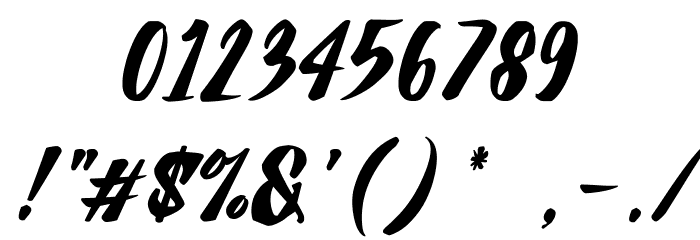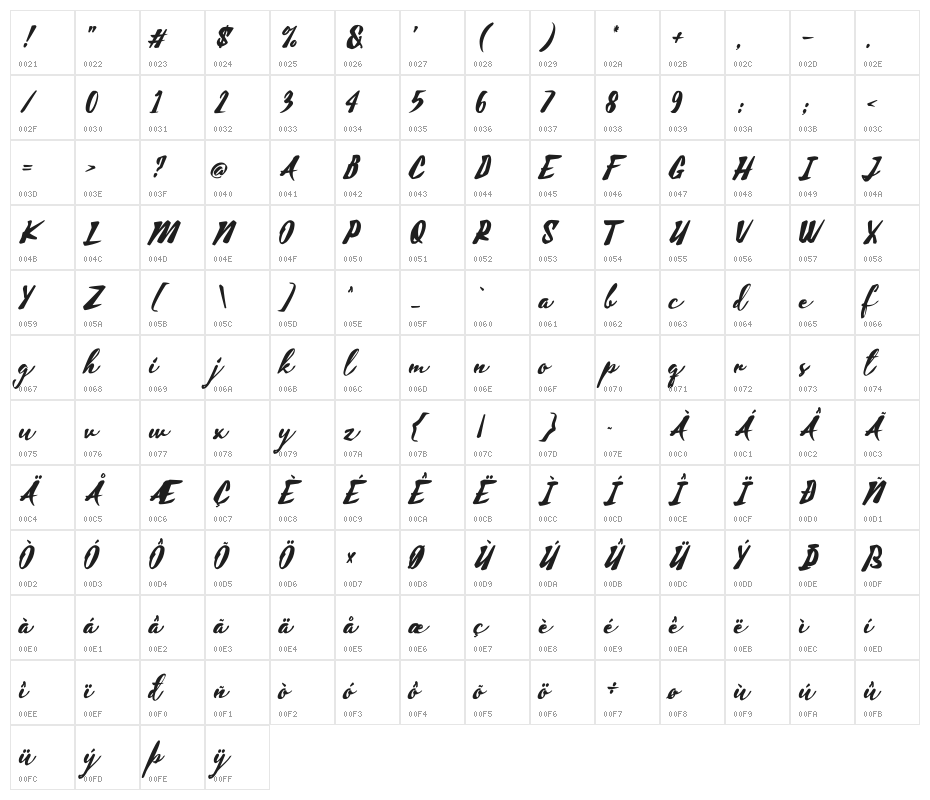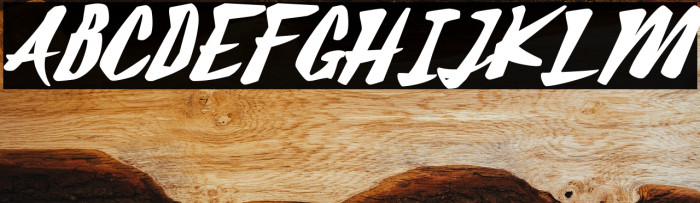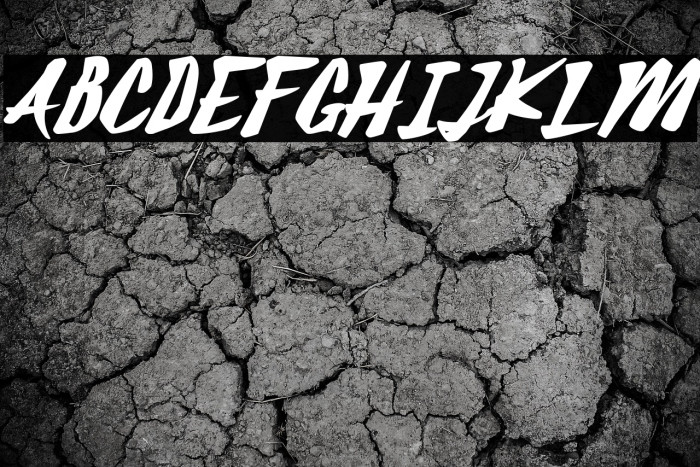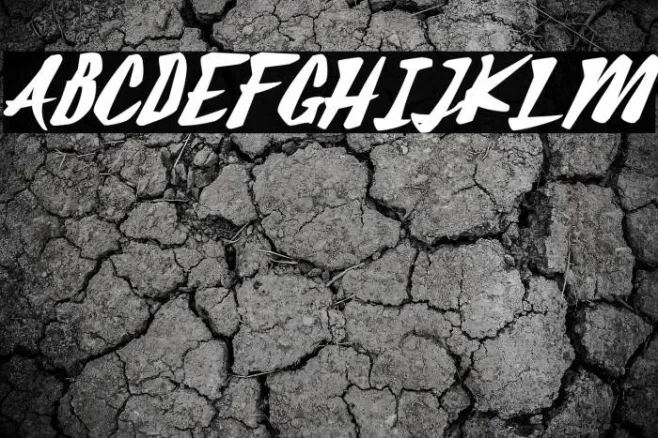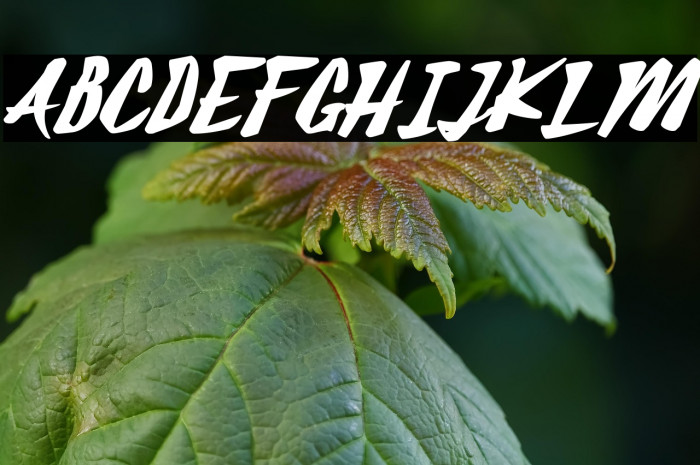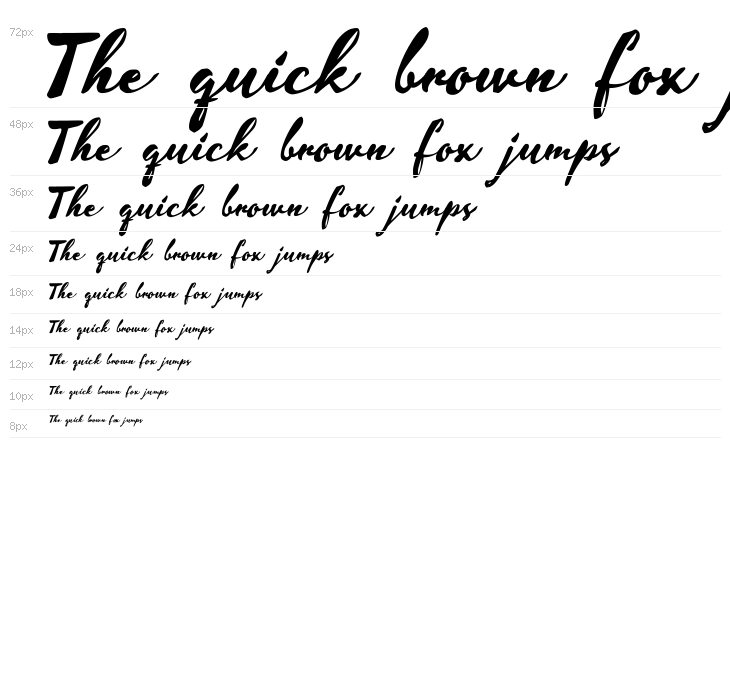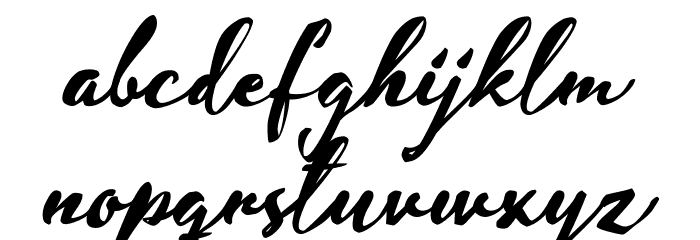
Aline Font
Aline Description
This font features a bold and dynamic script style with a strong presence. The uppercase letters are characterized by their thick strokes and angular forms, giving them a sense of movement and energy. The lowercase letters maintain a cursive flow, with elegant loops and connections that enhance the script's fluidity. Numbers and special characters are consistent with the overall style, providing a cohesive look. The font's boldness and unique style make it suitable for attention-grabbing designs.